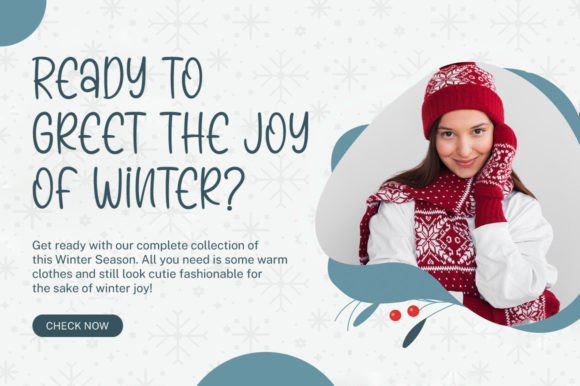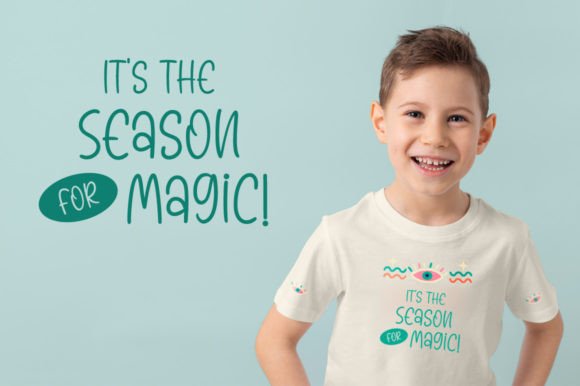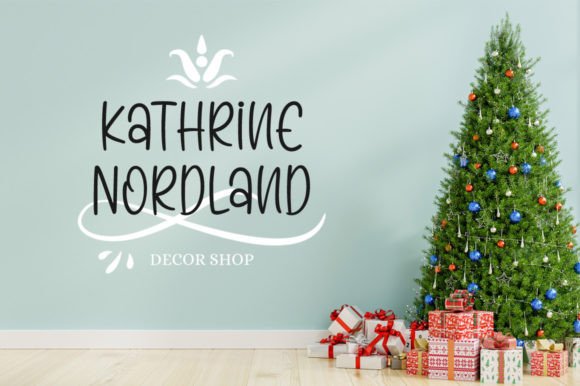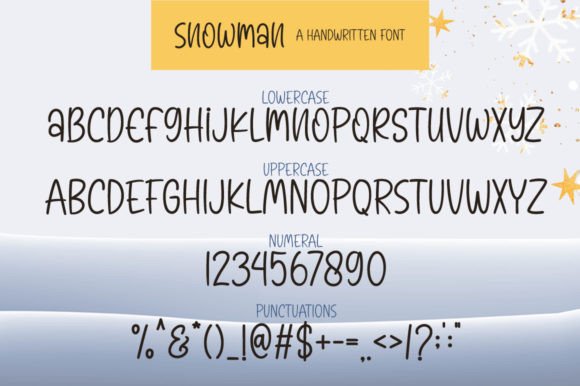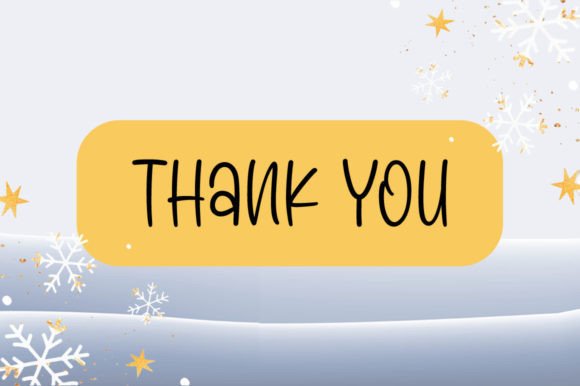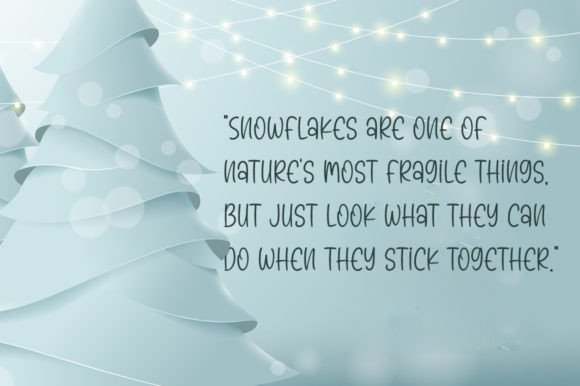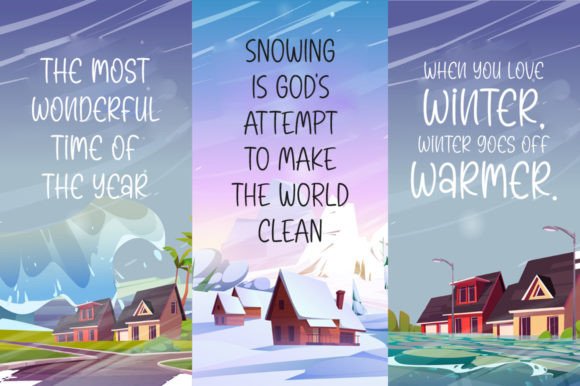
Snowman Font
Snowman Handwritten Font – Fun and Smart Typeface
The Snowman Handwritten Font is a playful and stylish typeface designed to bring warmth and character to your creative projects. With its casual strokes and smart handwritten flow, it creates a natural look that feels friendly and approachable. Whether you are designing invitations, thank-you cards, or branding projects, this font ensures your work captures attention.
A Handwritten Script with Casual Elegance
The Snowman Handwritten Font combines simple handwritten details with a modern touch. Its relaxed style makes it ideal for personal projects, while its readability ensures professional results. Because of this balance, it adapts well to both print and digital applications.
One of the best uses of the Snowman Handwritten Font is in greeting cards and invitations. Its fun and casual handwritten charm makes messages feel personal and warm. At the same time, it works beautifully for logos, quotes, posters, and business cards, giving your designs a friendly handwritten personality.
The Snowman Handwritten Font adapts perfectly to different design needs. From branding and packaging to social media graphics and product labels, it provides a natural handwritten style that enhances both casual and professional projects. As a result, it is a reliable font for creative designers.
Why Designers Love Snowman Font
Designers appreciate the Snowman HandwrittenFont because it balances fun with clarity. Its playful strokes bring charm to projects, while its readability guarantees professional outcomes. This dual quality makes it a must-have typeface in both personal and commercial toolkits.
In summary, the Snowman HandwrittenFont is a fun, smart, and versatile script typeface. With its friendly handwritten strokes, quick installation, and broad usability, it is perfect for invitations, greeting cards, quotes, and branding projects. Don’t miss the chance to download Snowman HandwrittenFont and add playful elegance to your creative designs.